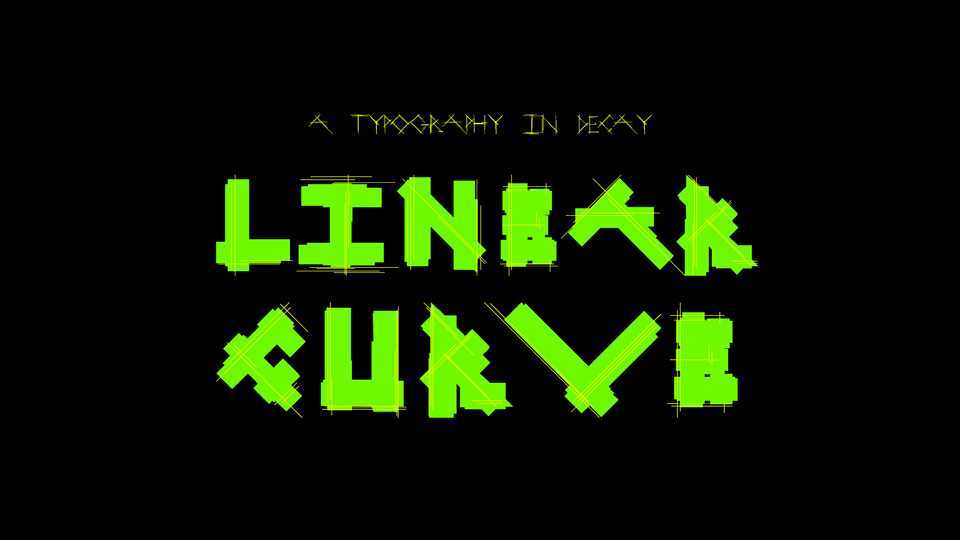
Download Linear Curve typeface, a creative display font family in two styles that looks like a very curvy yet straight font. Linear Curve is great for posters, album covers, headlines and other artworks.